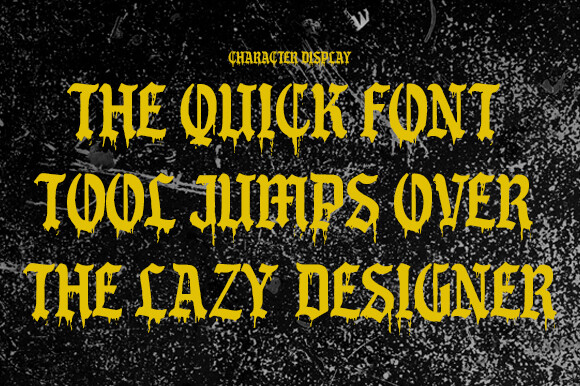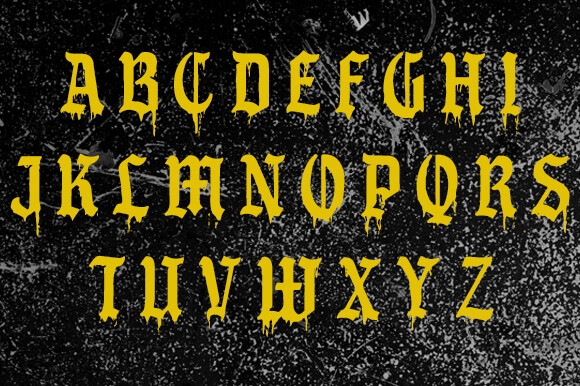
About Arunika Font
Introducing the enchanting Arunika, a fresh take on the gothic display typeface. Evoking a strong persona, it is fashioned with a strikingly compressed and whimsical dripping style. Designed to be versatile, Arunika is arresting in both short titles and extensive versions. It comes replete with uppercase and lowercase letters, numerals, punctuation, and a multilingual capacity, making it universally appealing. An irresistible blend of classical gothic and audacious modernity, Arunika will captivates viewers, bringing a unique style to any artistry.